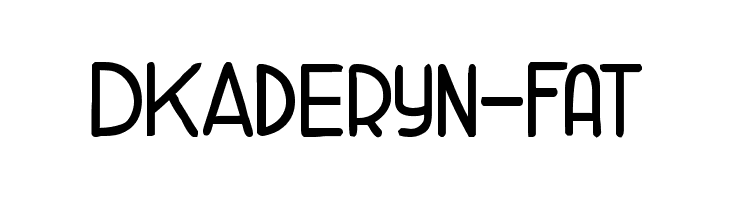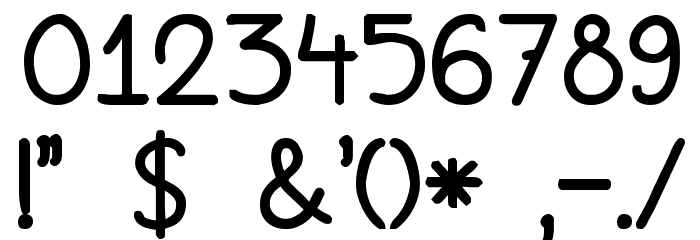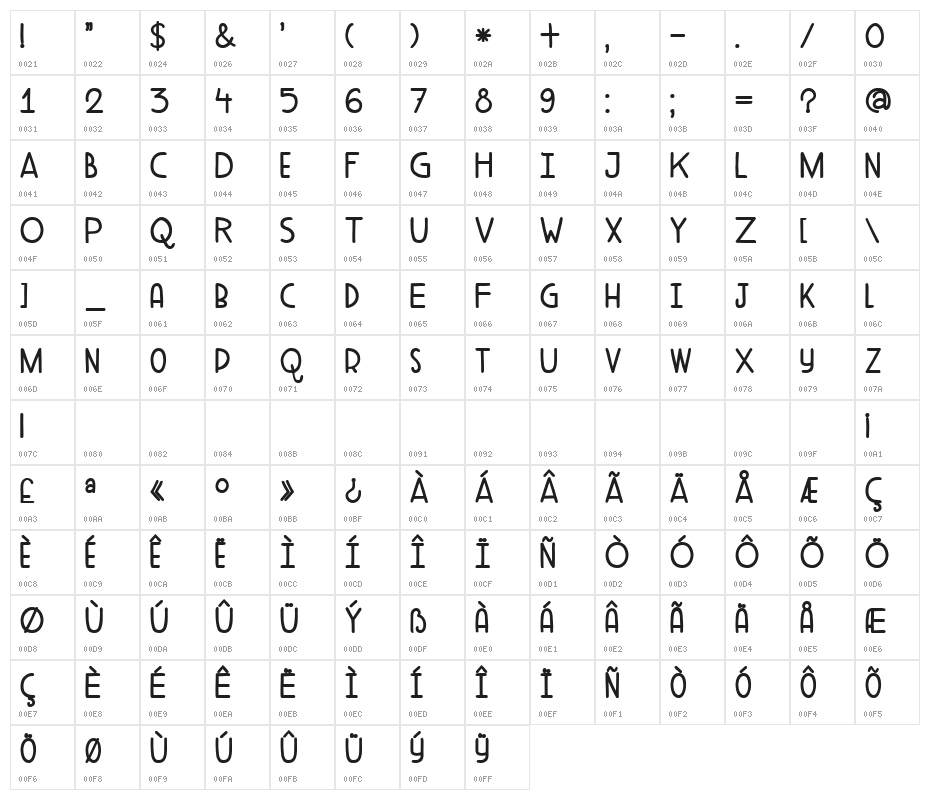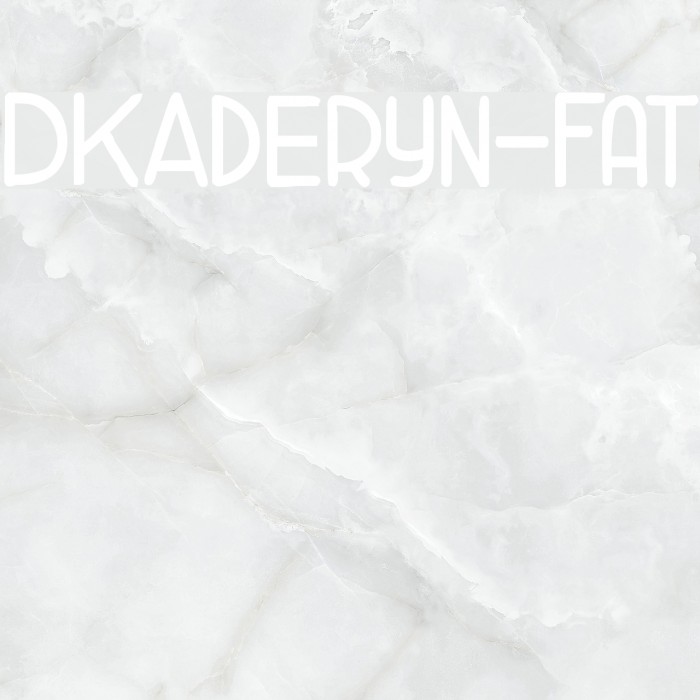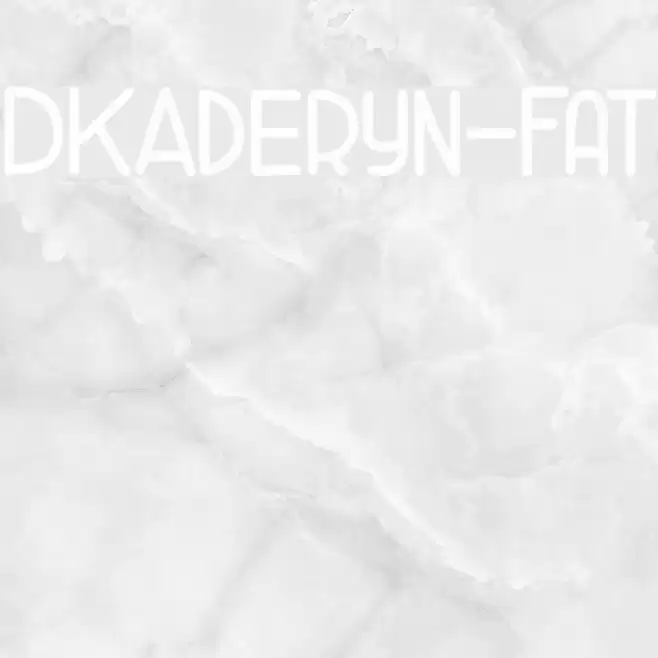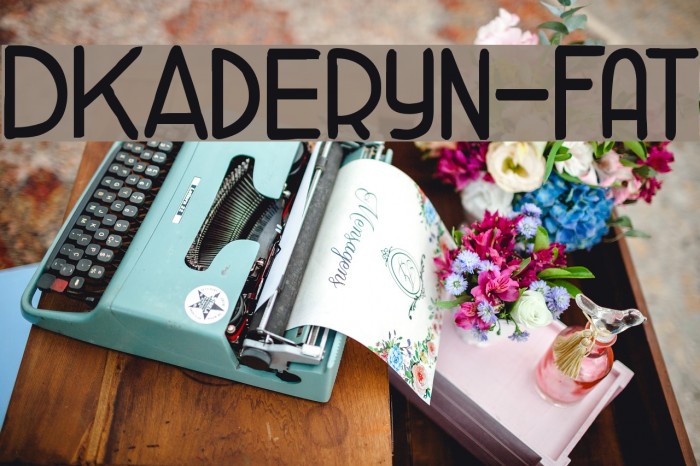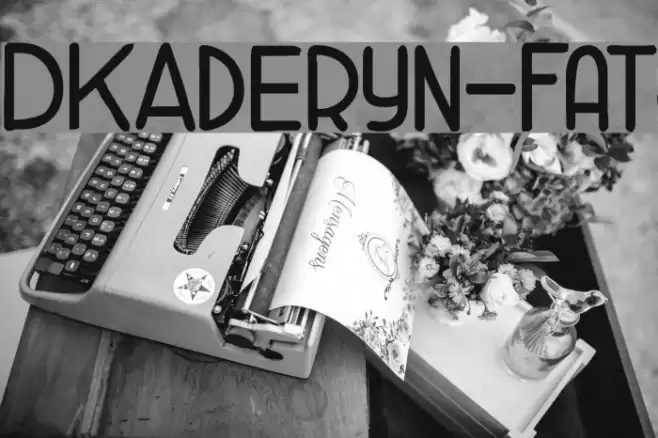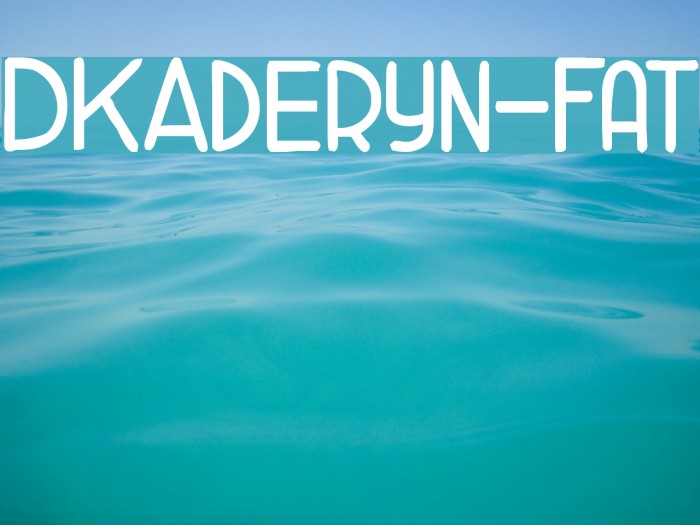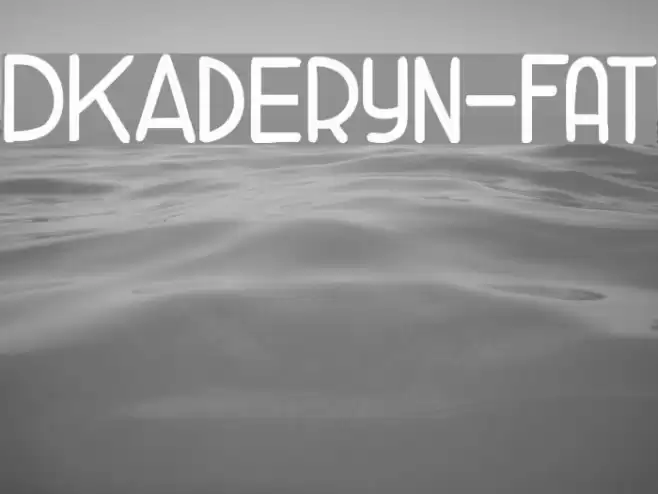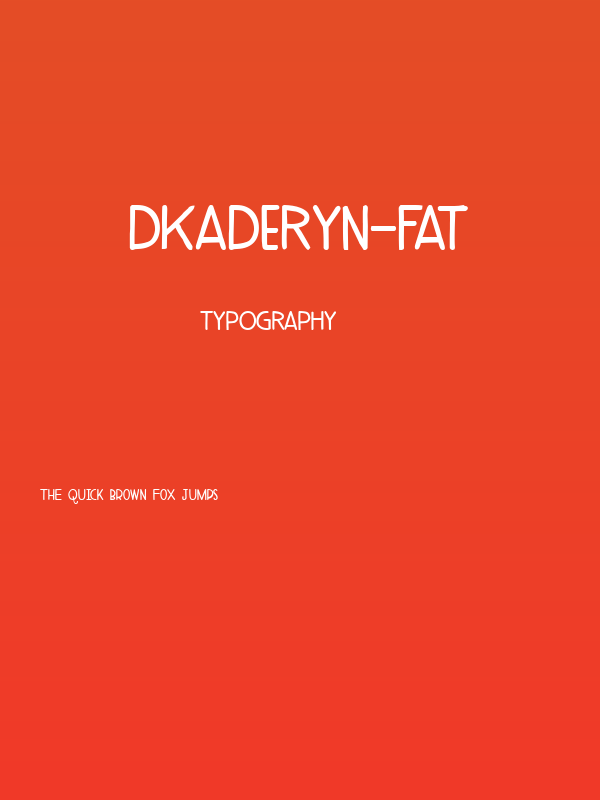
DKAderyn-Fat Font
DKAderyn-Fat Description
This font features a playful and rounded style, characterized by its smooth curves and consistent stroke width. The letters are evenly spaced, providing a clean and approachable appearance. The uppercase and lowercase letters maintain a uniform height, contributing to its legibility. Numbers and special characters are designed with the same rounded aesthetic, ensuring a cohesive look across all text elements. The font's simplicity and charm make it suitable for a variety of creative applications.
| Proposed Projects | Ideal for children's books, playful branding, casual invitations, and fun posters. |